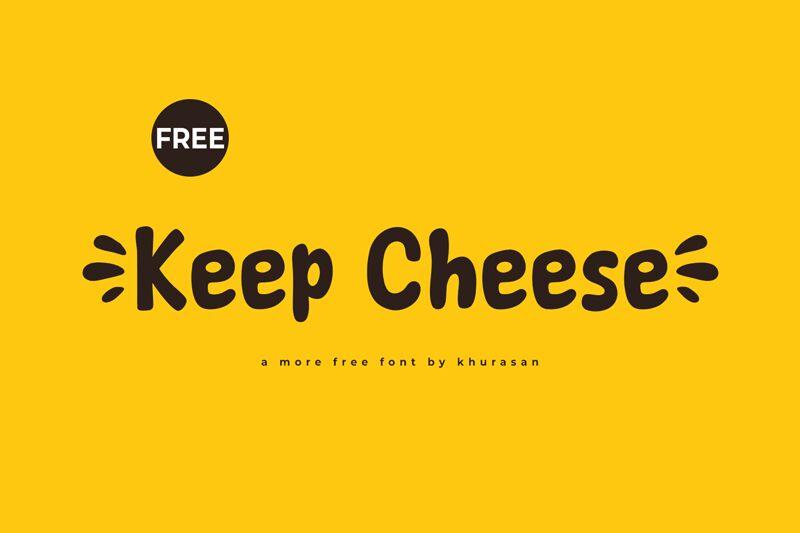
Keep Cheese
Keep Cheese font, designed by Khurasan, embodies a playful and whimsical cartoon style that instantly captivates. Its bold and rounded characters exude a sense of warmth and friendliness, making every letter feel alive. The quirky contours add a touch of fun, perfect for engaging audiences in a lighthearted manner.
This display font shines in creative contexts such as children’s books, playful branding, or vibrant posters where the goal is to evoke joy and imagination. Its distinct character can also enhance digital graphics or social media designs aimed at attracting attention with personality.
In every application, Keep Cheese ensures that communication is not just effective but also delightful, inviting viewers to experience the charm of its unique aesthetic.